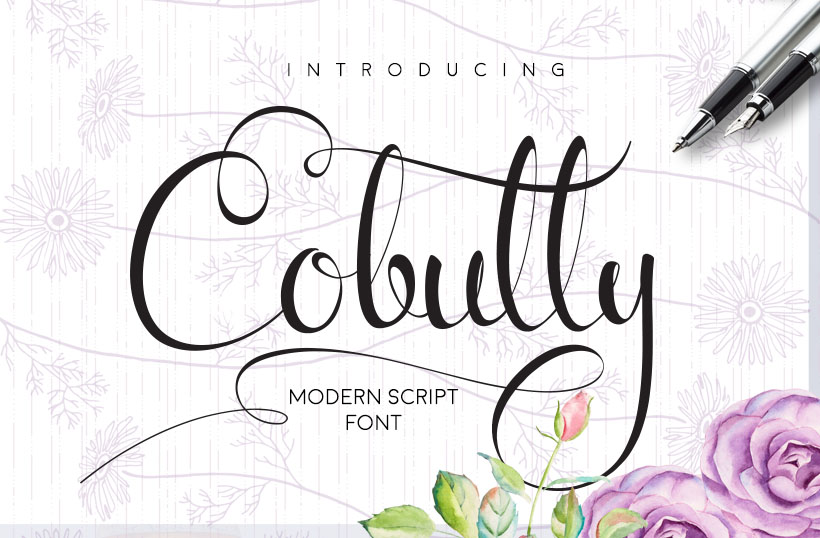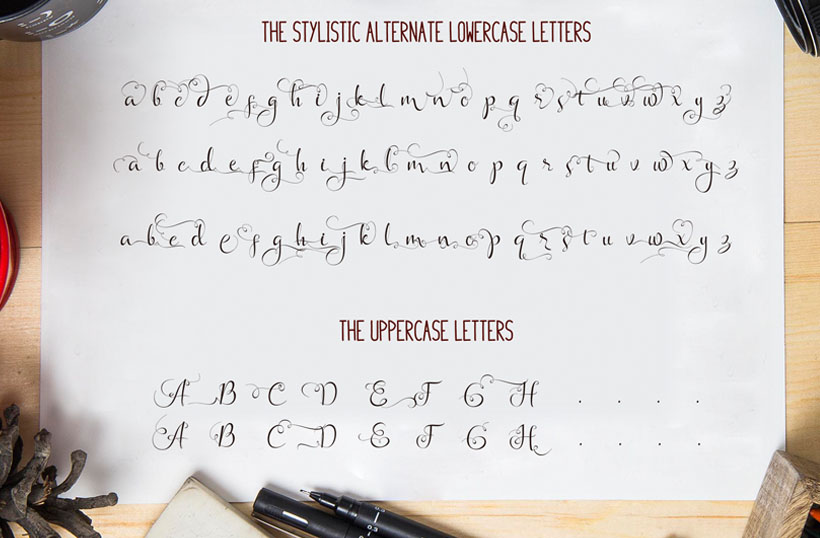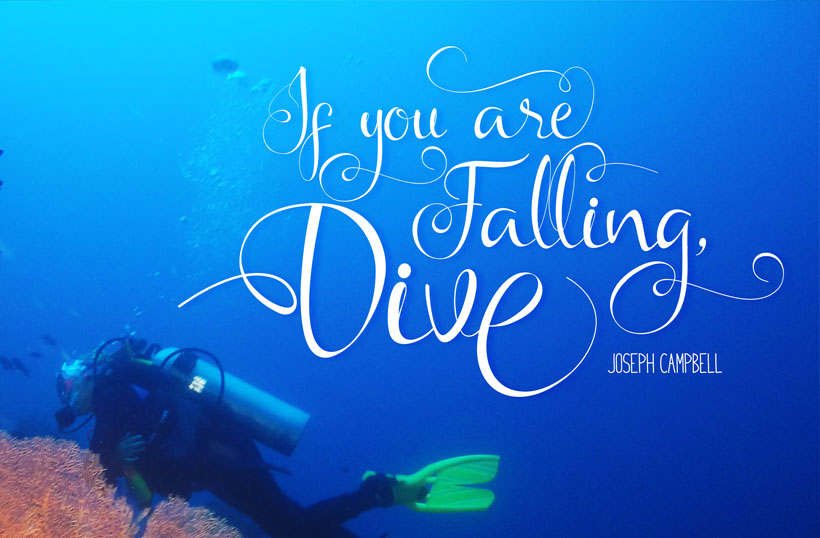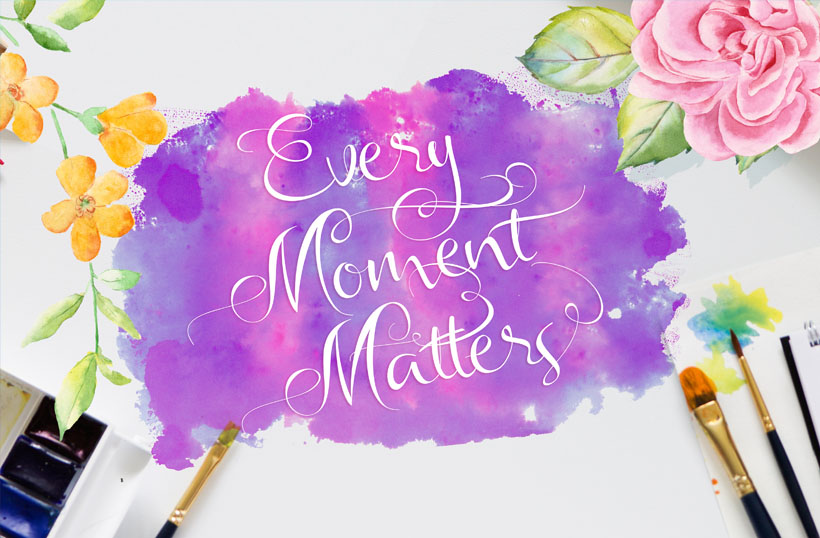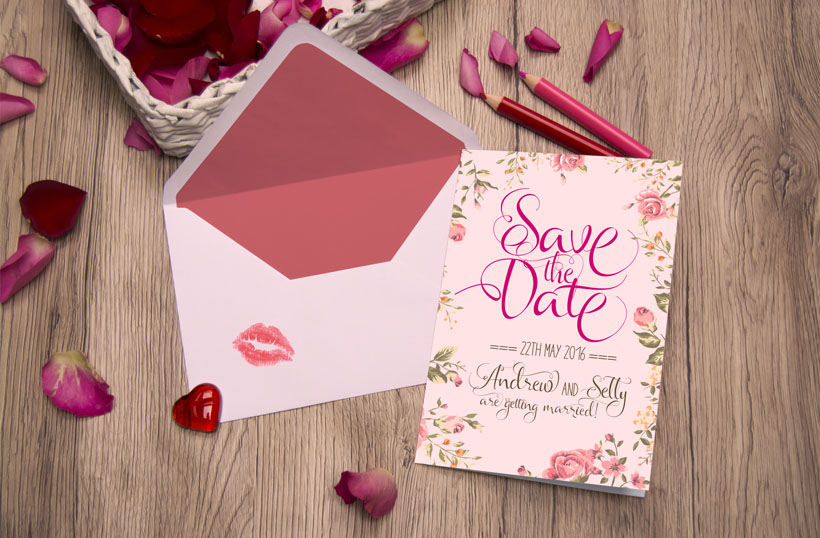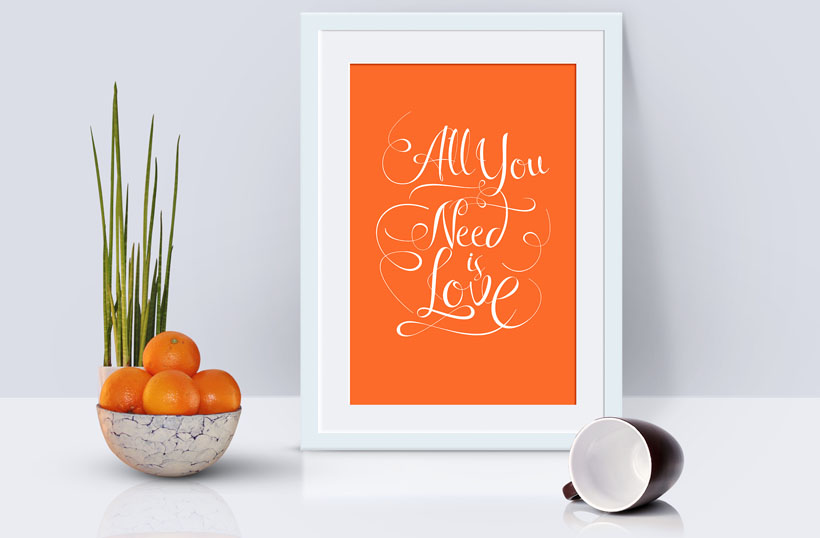
Cobully Font
About Cobully Font
Cobully Script is a new & fresh modern script with a sweet calligraphy style, decorative characters, and a dancing baseline. Can be used for various purposes such as headings, logos, invitations, t-shirt designs, greeting cards, posters, labels, book covers, and much more